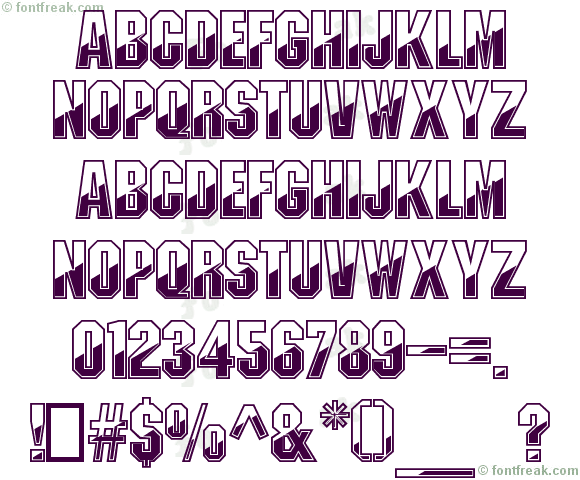
Gunmetal Regular
About Gunmetal
Gunmetal is a distinctive display typeface designed by Digital Graphic Labs, categorized under decorative fonts. Released in 1998, this freeware font showcases a bold and striking visual style that makes it an excellent choice for attention-grabbing designs. The font features a strong, heavy stroke weight with a minimal contrast, imparting a sense of stability and strength. Its characters exhibit uniform spacing, which enhances readability while maintaining a unique aesthetic appeal. The angular shapes and geometric forms suggest a modern flair, making it suitable for various creative projects.
The Gunmetal font is incredibly versatile, making it ideal for a range of applications. Graphic designers may find it particularly effective for creating eye-catching movie posters, where a bold statement is essential. Small business owners can use it in restaurant menus to convey a contemporary vibe that attracts diners. Additionally, content creators can leverage the font for promotional materials, such as flyers and social media graphics, where it helps to establish a strong brand presence. Wedding planners might also consider Gunmetal for unique invitations that stand out from traditional designs, adding a contemporary twist to a classic event.
The target audience for Gunmetal includes graphic designers, small business owners, and content creators looking for a font that combines modern aesthetics with functionality. Its ability to command attention while maintaining clarity makes it a valuable addition to any designer’s toolkit.
What sets the Gunmetal font apart is its ability to merge boldness with elegance, allowing it to be both eye-catching and sophisticated. For those seeking a striking typeface that leaves a lasting impression, Gunmetal font free download offers an opportunity to elevate any project with its unique character and style.